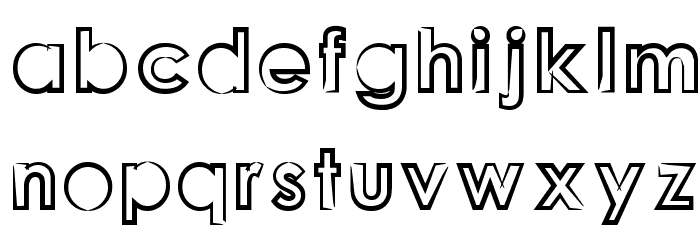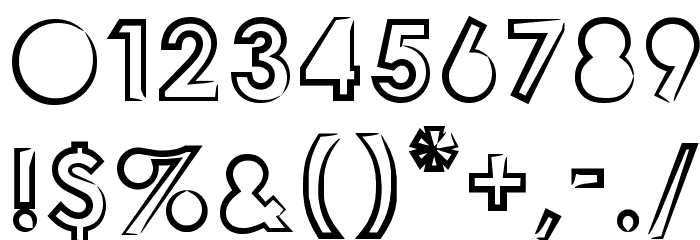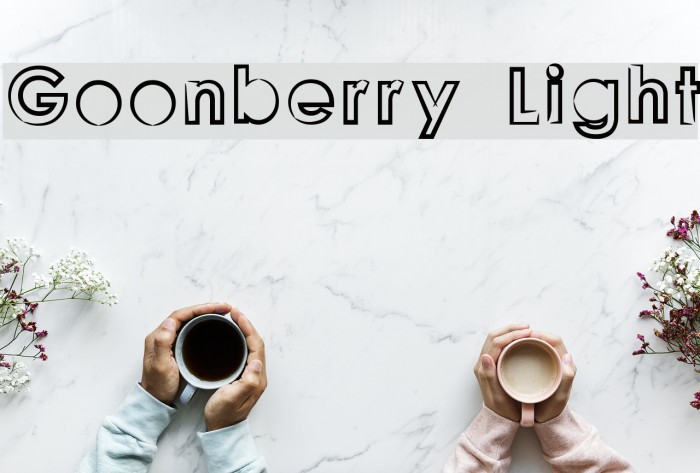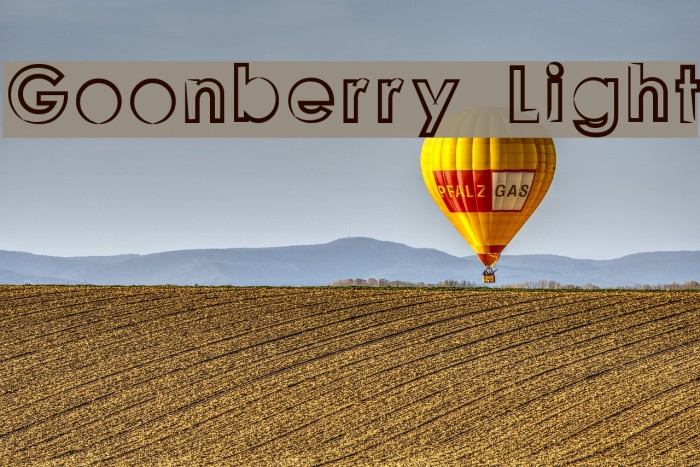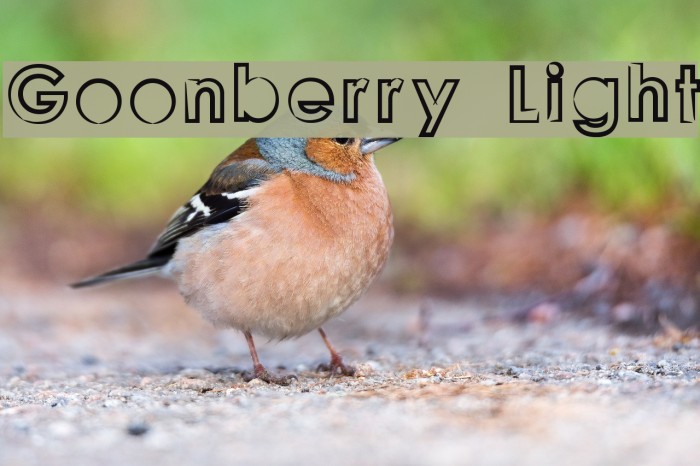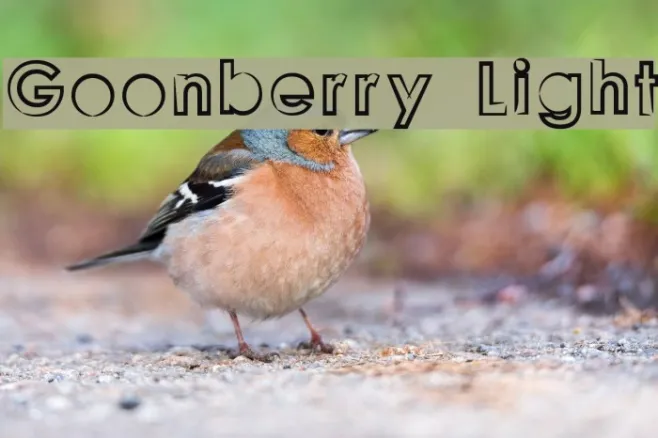
Goonberry Light Font
This font features a bold, geometric design with a unique outline style that gives it a three-dimensional appearance. The uppercase letters are particularly striking, with sharp angles and clean lines that create a modern and dynamic look. The lowercase letters maintain the same geometric style, offering consistency across the typeface. Numbers and special characters are designed with the same attention to detail, ensuring they complement the overall aesthetic. The font's distinctive outline effect makes it stand out, making it ideal for eye-catching designs.
A bold, geometric font with a unique outline style for a modern look.
- Proposed Projects: Ideal for posters, logos, headlines, and any design needing a bold, modern touch.